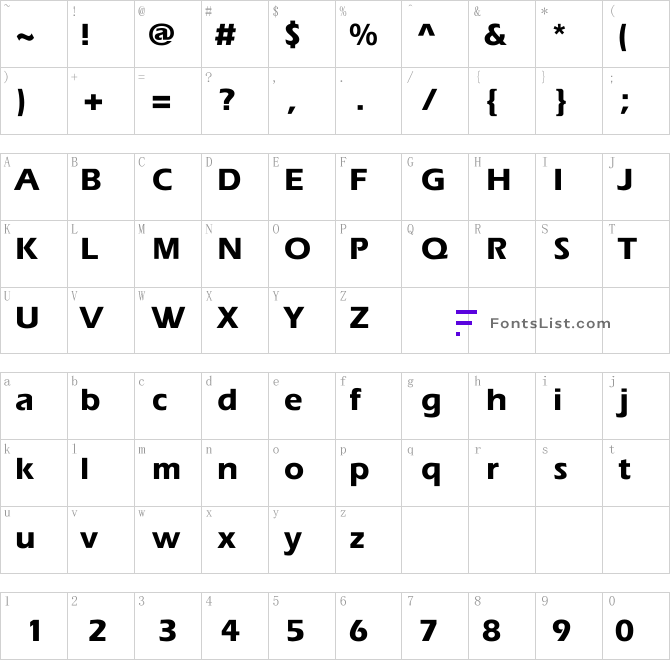
Aquiline-Extra-Bold-copy-1-.ttf is a very beautiful artistic font, Aquiline-Extra-Bold-copy-1-.ttf is widely used in the design and printing of various books and pictures,Aquiline-Extra-Bold-copy-1-.ttf has a strong visual impact,Aquiline-Extra-Bold-copy-1-.ttf is a commonly used font in newspapers, magazines and books, and is used in posters, e-commerce Poster design, store design, logo design, font design and other fields.Aquiline-Extra-Bold-copy-1-.